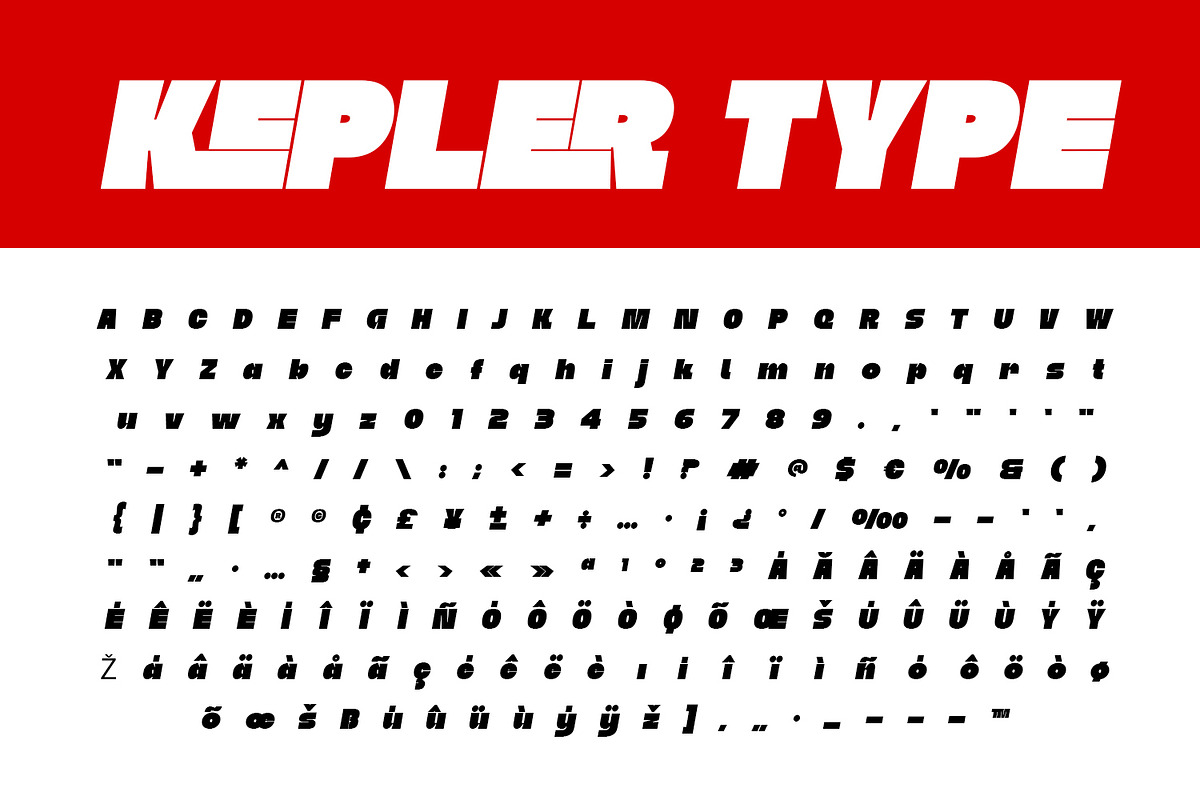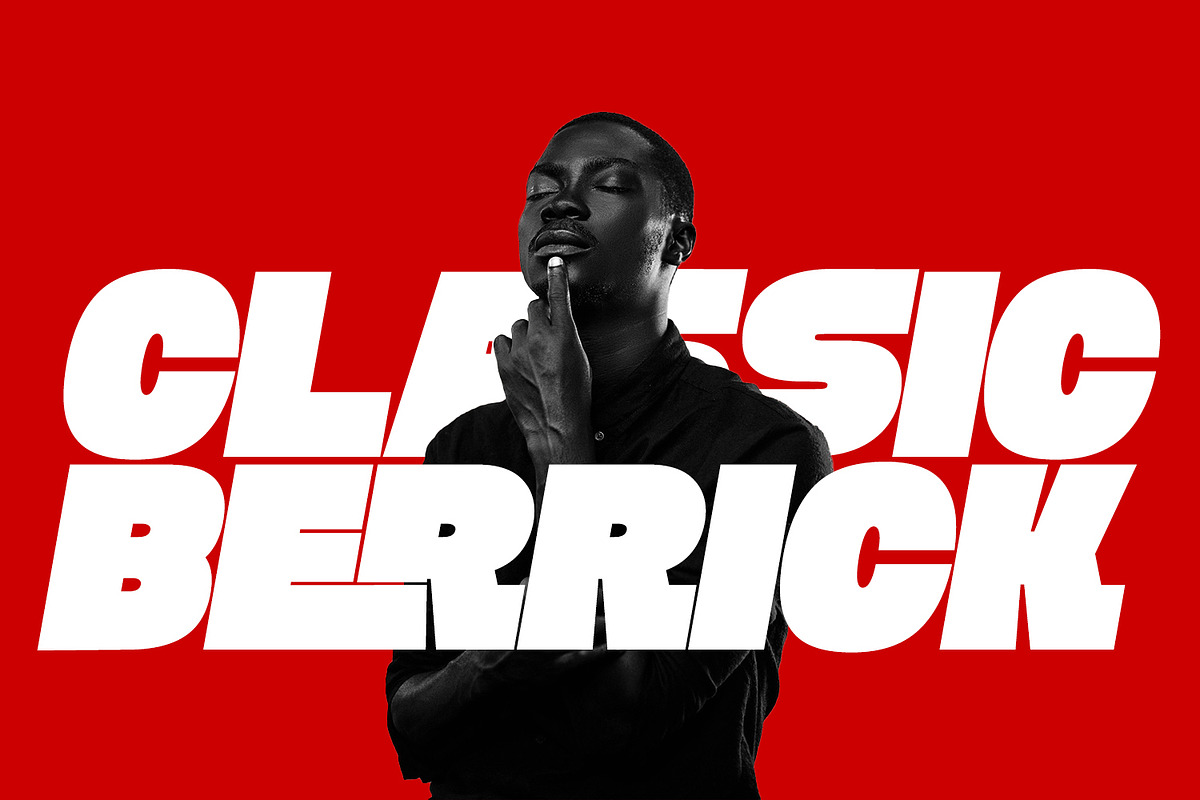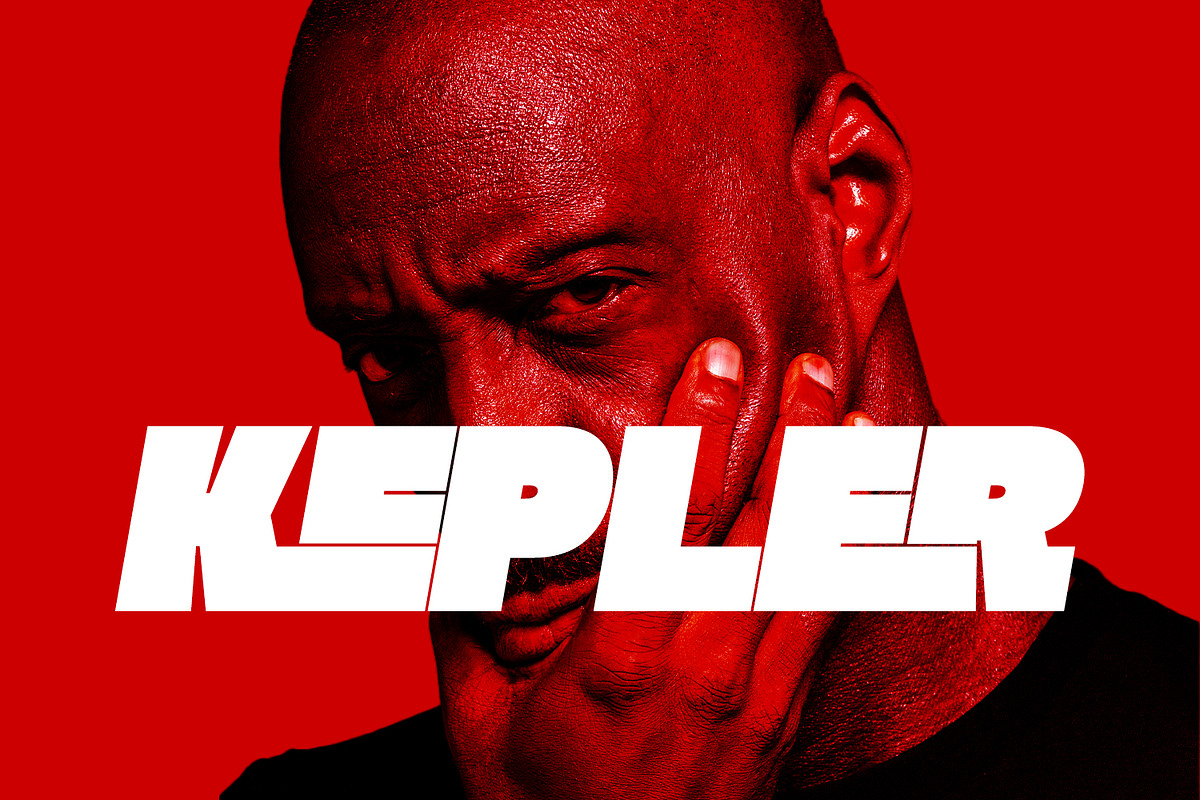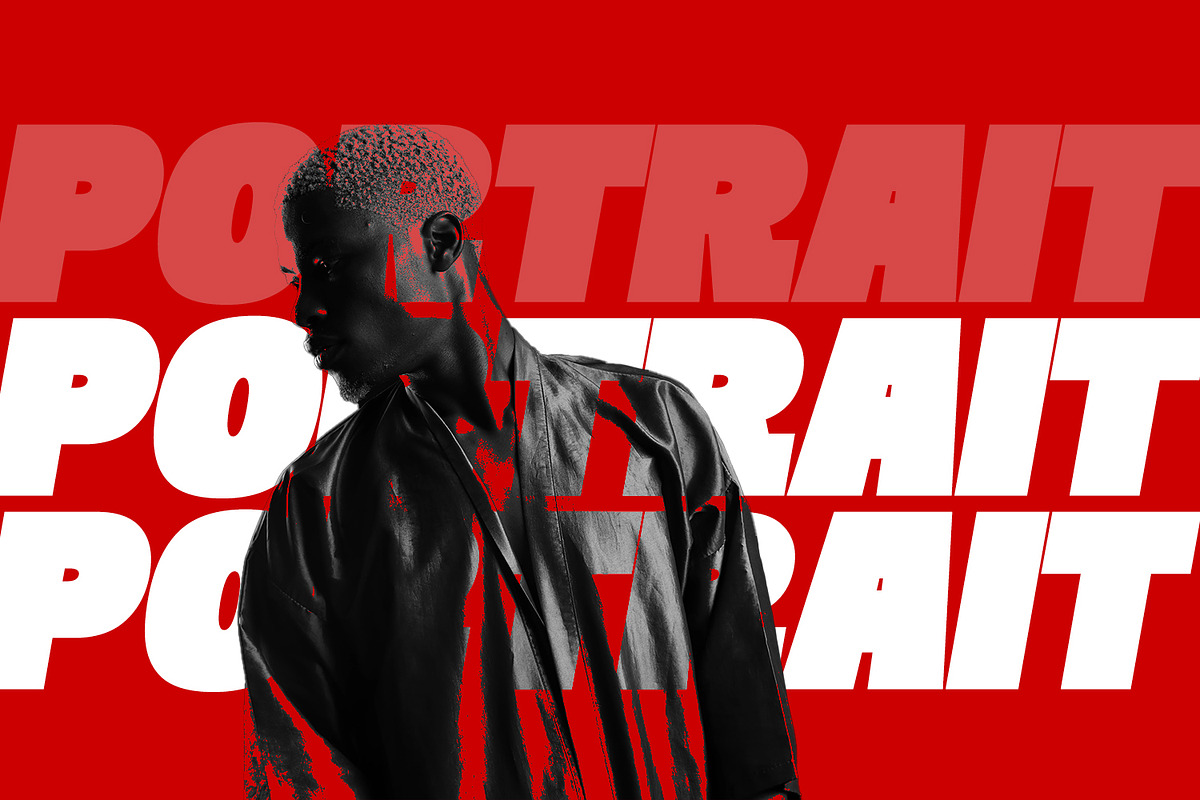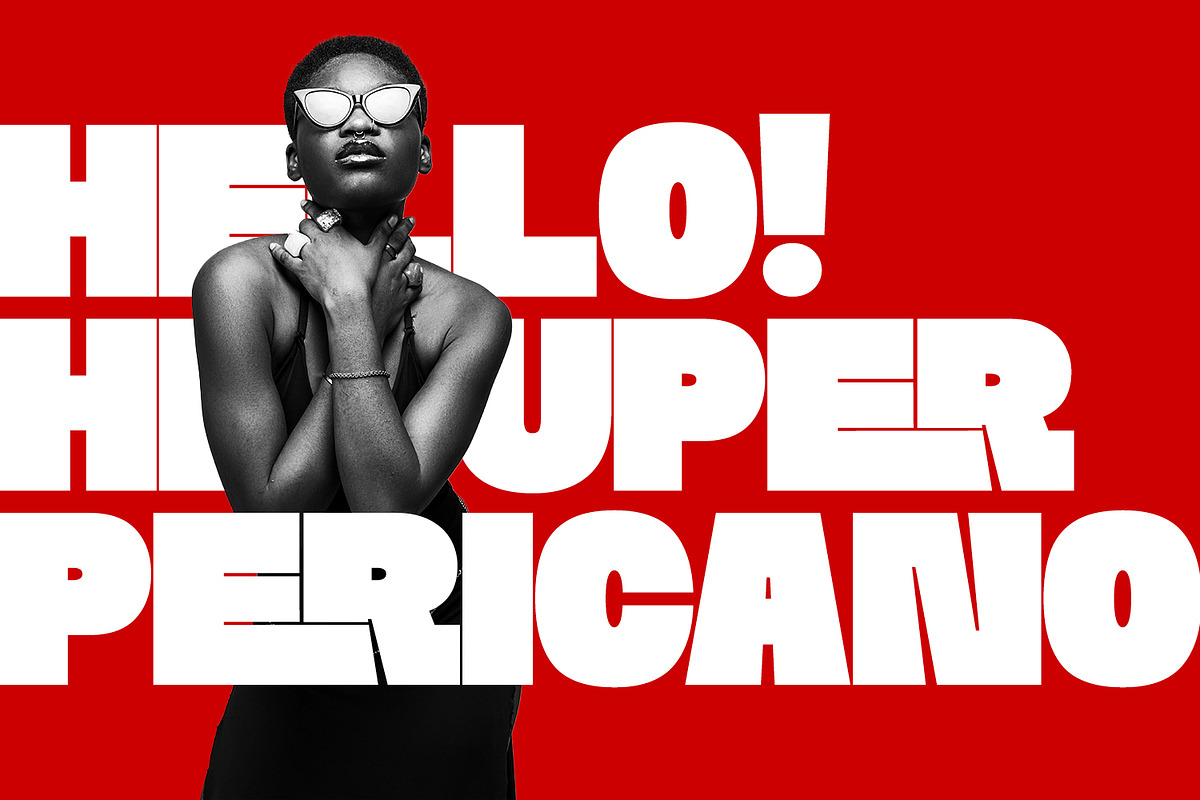
Kepler Display
Kepler is a powerful bold display typeface crafted to make your brand stand out with confidence. Designed for impactful headlines, striking logos, modern posters, and bold advertising, Kepler delivers a strong visual presence that grabs attention instantly. Its clean yet commanding style makes it the perfect choice for businesses, creative projects, and brand identities that demand boldness and clarity.